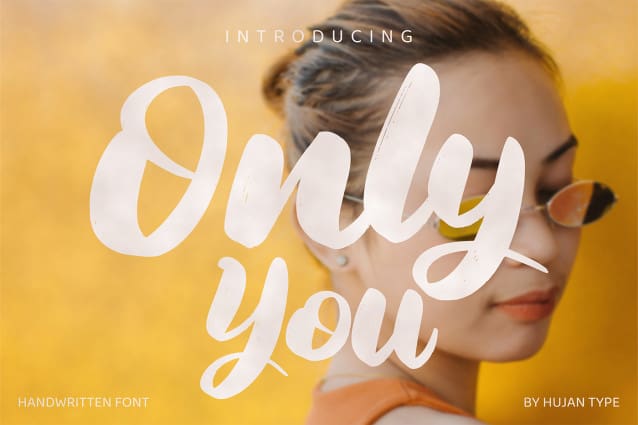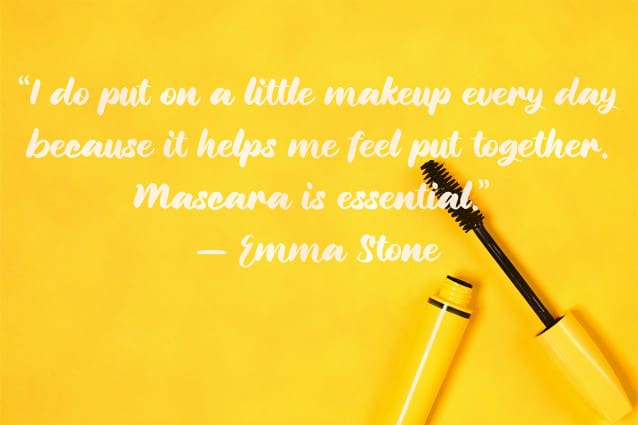
Only You Font
Only You font modern style of natural handwriting, bringing a sense of authenticity and tranquility to your designs. It is perfect for wall displays, wedding invitations, social media post logos, advertisements, product packaging, product designs, labels, photography, watermarks, invitations, stationery, and any project that requires handwritten taste.
Designer Name: hujantype